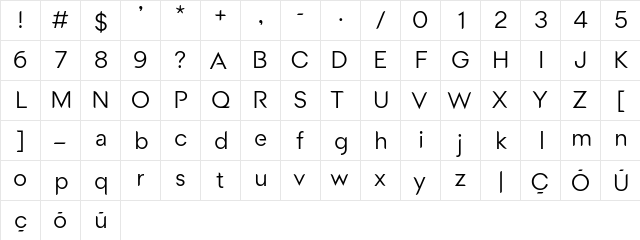
Medel Regular Font Preview
Medel Regular
Medel Regular Font Details
| Designer | Ozan Karakoc |
Design Context for Medel Typeface
Medel offers clean, dependable letterforms without strong stylistic allegiance, making it a practical choice for designers who need flexibility.